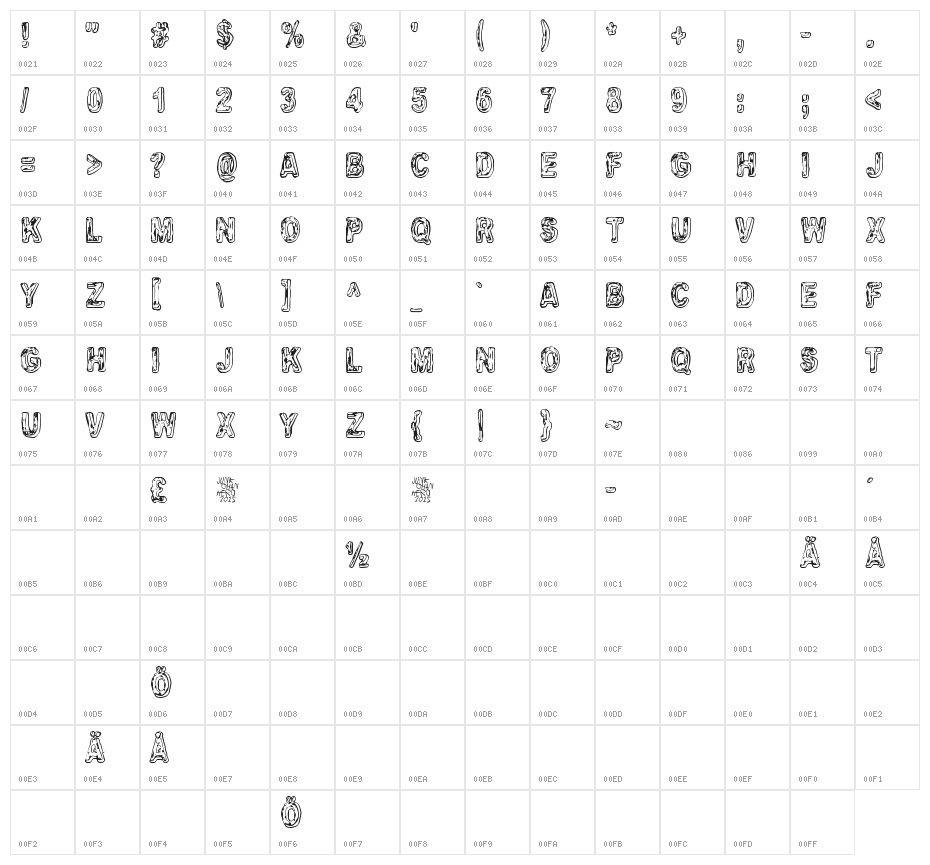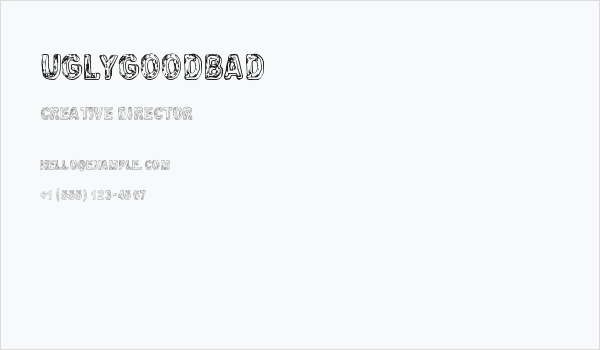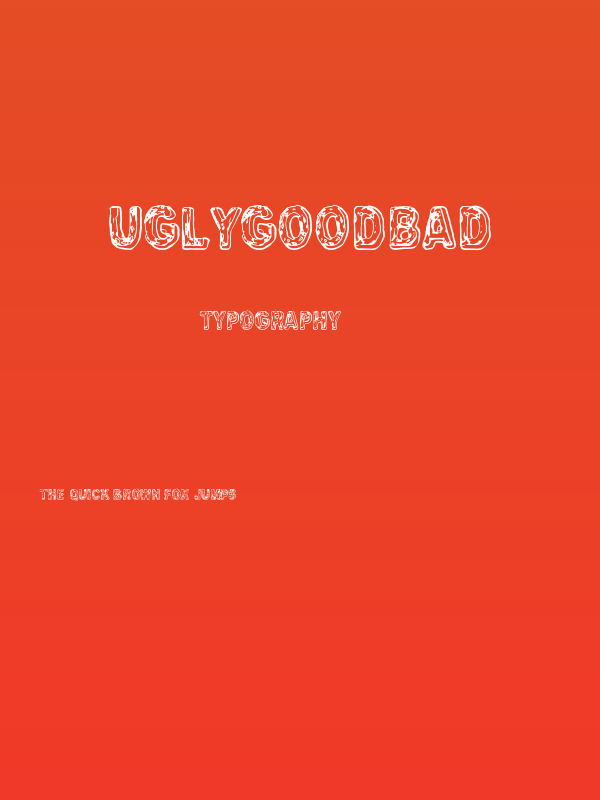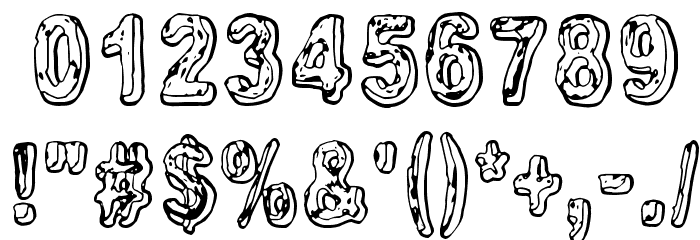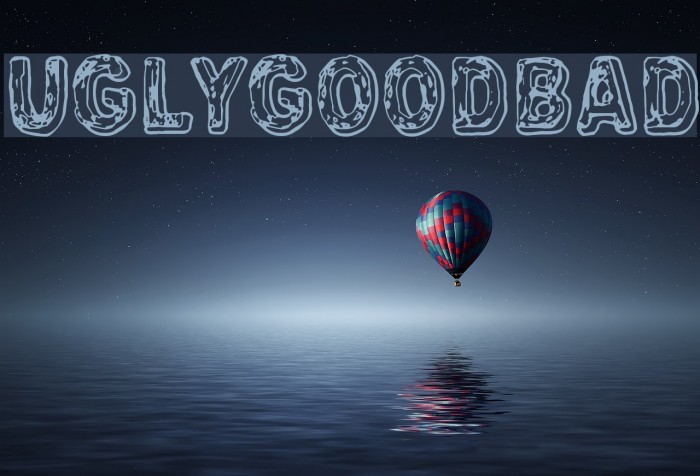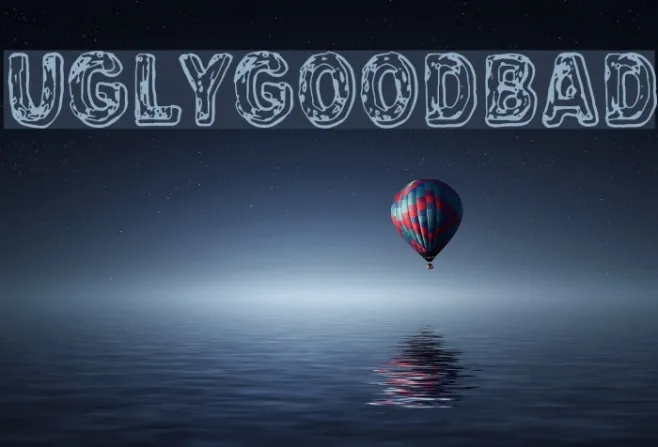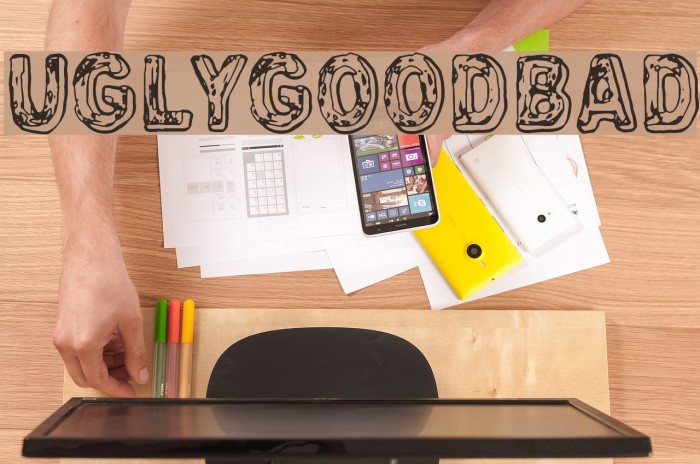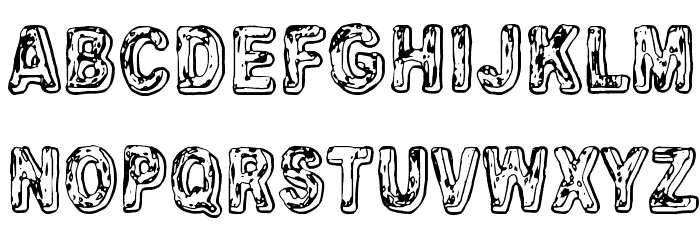
Uglygoodbad Font
Uglygoodbad Description
This font features a bold, decorative style with a playful and quirky appearance. Each character is outlined with a thick, uneven stroke, giving it a hand-drawn, organic feel. The interior of the letters is filled with irregular, abstract shapes that add a sense of movement and texture. This unique design makes it stand out, making it ideal for creative and artistic projects. The font maintains consistent proportions across uppercase, lowercase, numbers, and special characters, ensuring readability despite its unconventional look. Its distinctiveness is perfect for grabbing attention and adding a fun, dynamic element to any design.
| Proposed Projects | Ideal for posters, album covers, children's books, and creative branding. |